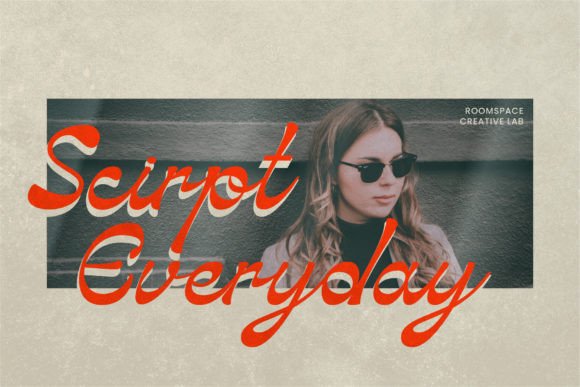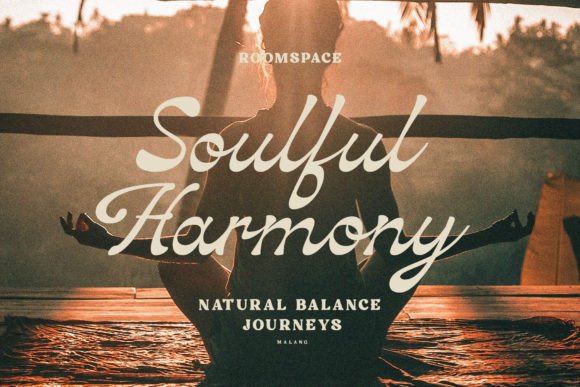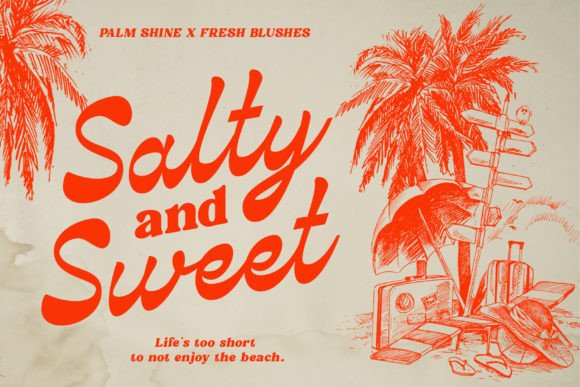
Introduction to Fresh Blushes Font
Fresh Blushes, a stunning modern script font that embodies clean lines and timeless sophistication, combines contemporary aesthetics with simplicity, making it a versatile option for a wide array of design applications.
Its sleek lines and uncluttered letterforms convey a sense of modernity, Crafted with precision and a minimalist touch, Fresh Blushes is your go-to choice for contemporary design projects Whether youโre creating logos, branding materials, wedding invitations, or editorial layouts, Fresh Blushes seamlessly adapts to different design contexts, adding a touch of elegance to your projects, With comprehensive multilingual support, Fresh Blushes ensures your message can be conveyed seamlessly across languages and borders.
Key Features of Fresh Blushes Font
Why Choose Fresh Blushes Font?
Fresh Blushes Font offers exceptional quality and versatility, making it a valuable addition to your design toolkit. Whether you’re creating for personal projects or commercial use, Fresh Blushes Font delivers professional results.